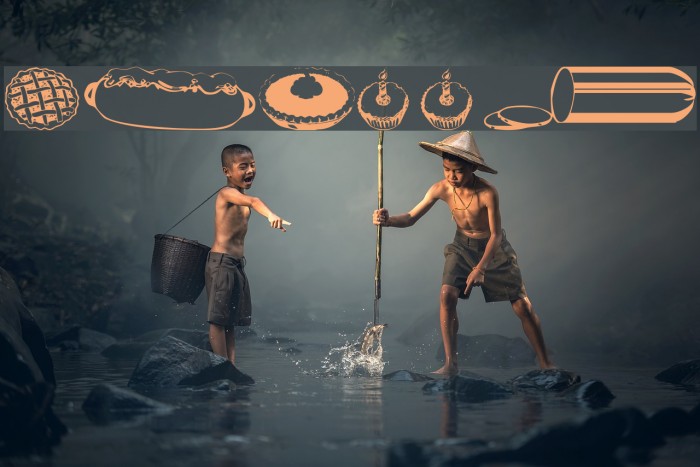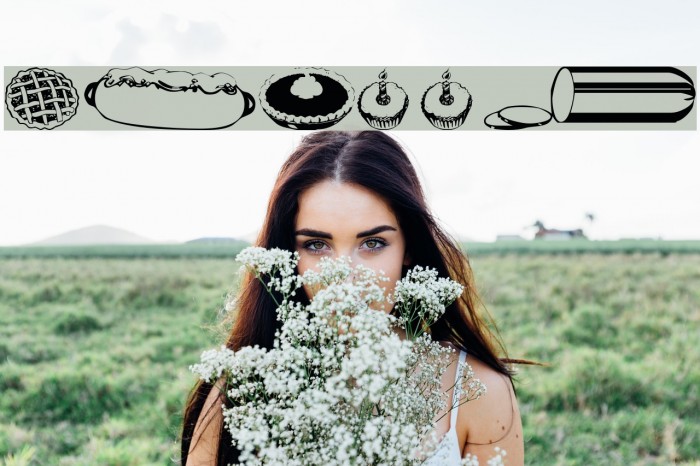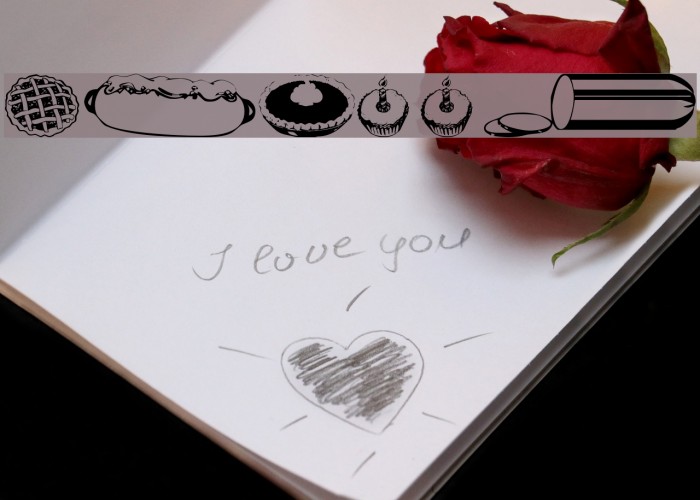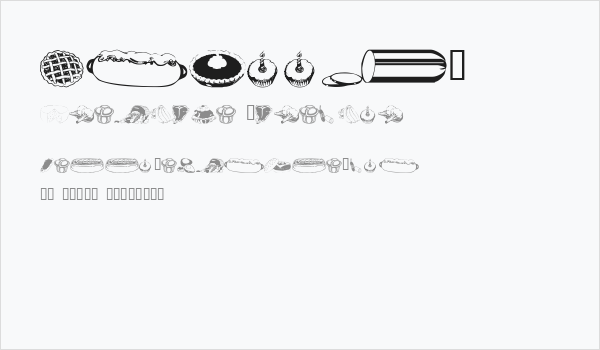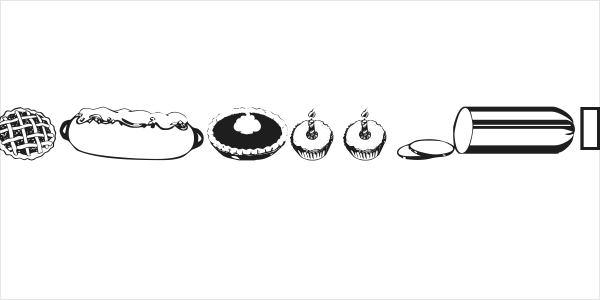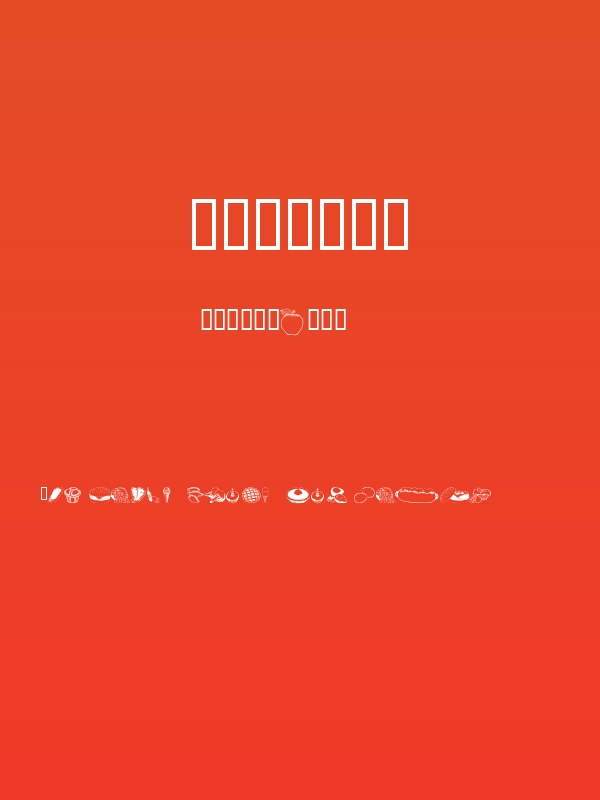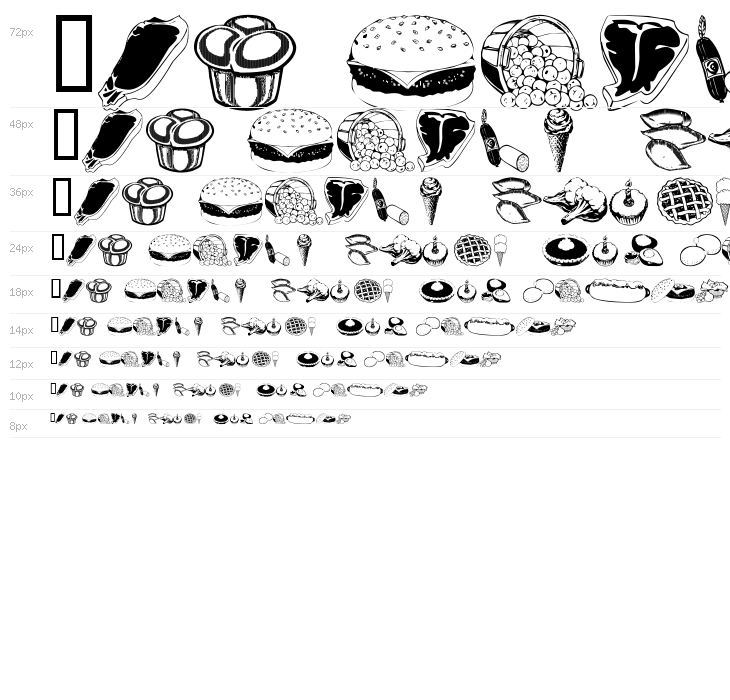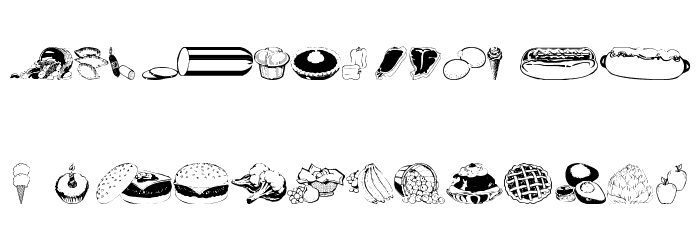
wmfood2 Font
wmfood2 Description
A decorative dingbat font featuring detailed black and white illustrations of various foods, including fruits, vegetables, meats, desserts, and snacks. Each character is represented by a unique food item, rendered in a hand-drawn, sketch-like style.
| Overall Style | Decorative, Hand-drawn |
| Use Case | Logos, Decorative elements, Themed graphics |
| Proposed Projects | Menus, food blogs, restaurant branding, culinary event posters, recipe cards, educational materials for children. |